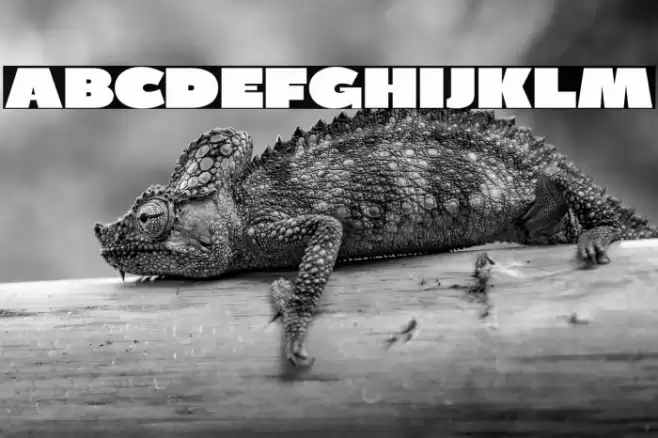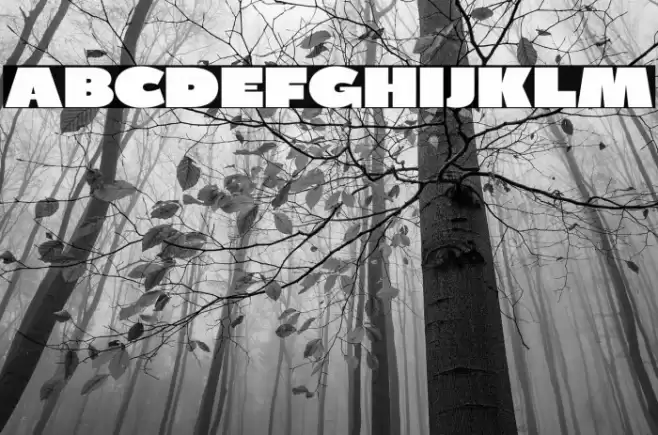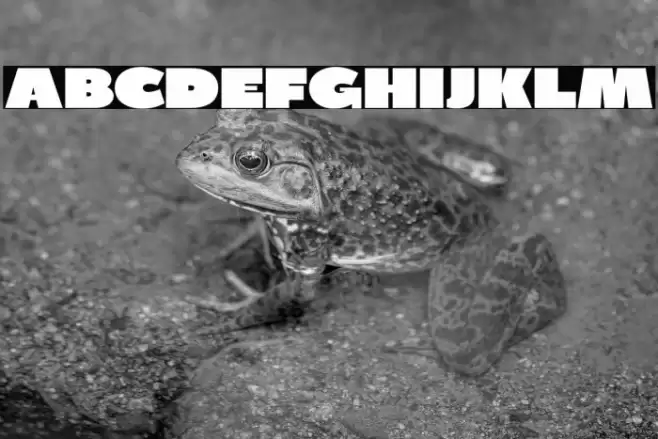
BPDiet-UltraBlack Font
BPDiet-UltraBlack Description
This font features bold, heavy strokes with a strong presence, making it ideal for impactful designs. The characters are wide and robust, with a consistent thickness throughout, giving it a powerful and commanding appearance. The uppercase and lowercase letters maintain a uniform style, with rounded edges that add a touch of softness to the otherwise strong design. The numerals and special characters are equally bold, ensuring they stand out in any composition. This font is perfect for projects that require a strong visual impact, such as headlines, posters, and branding materials.
A bold, heavy font with wide, robust characters and rounded edges from Regular fonts.
- Font: BPDiet-UltraBlack
- Proposed Projects: Ideal for headlines, posters, branding, and any design requiring a strong visual impact.
- Width: Expanded